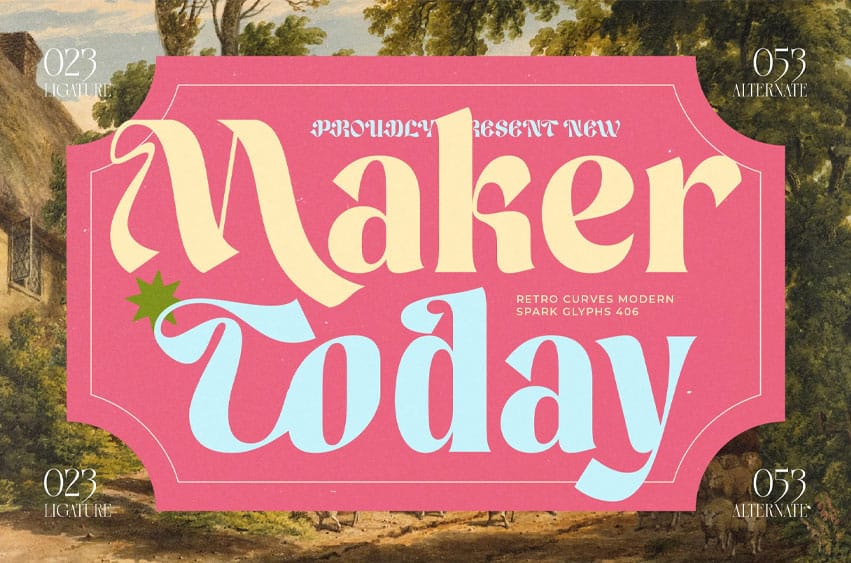
Maker Today Font Modern Retro Serif Display Font , Maker Today is a bold retro serif with charming curves, vibrant personality, and modern detailing. Its playful letterforms blend vintage poster aesthetics with contemporary clarity, making it perfect for branding, packaging, editorial headlines, social media graphics, and expressive typography.
With 23 ligatures and 53 alternates, this font offers versatile styling options that bring character, warmth, and a handcrafted nostalgic touch to any design project.